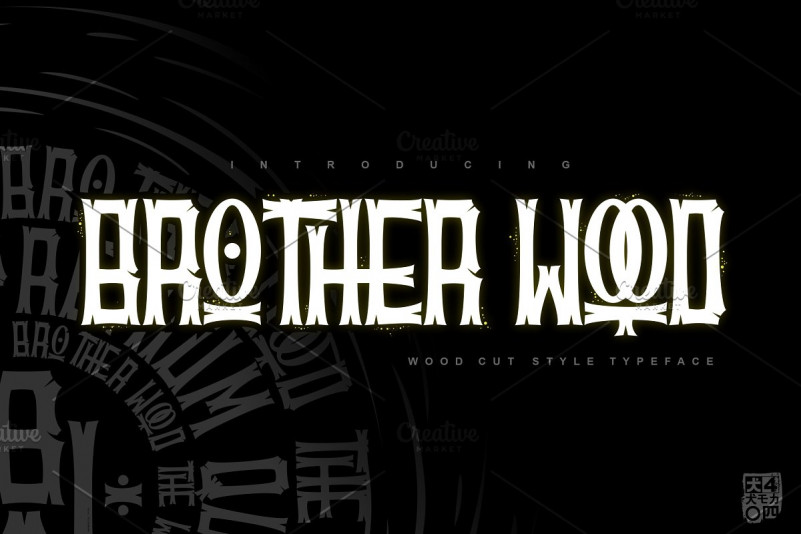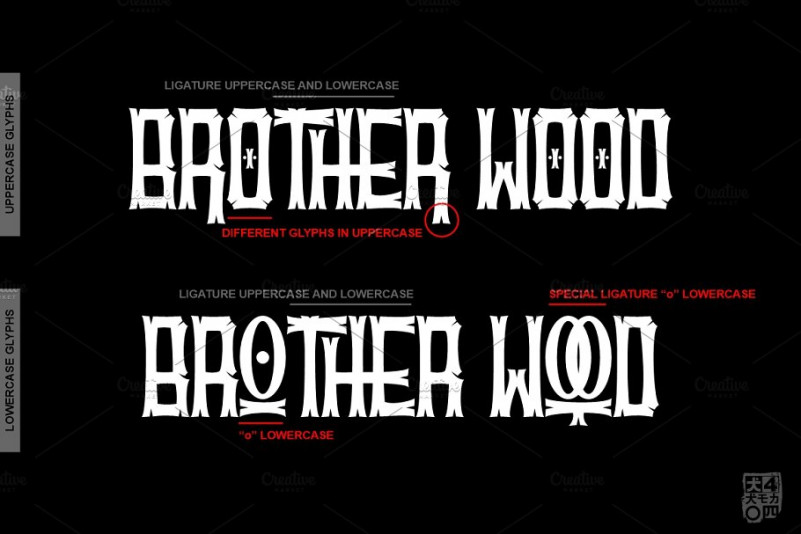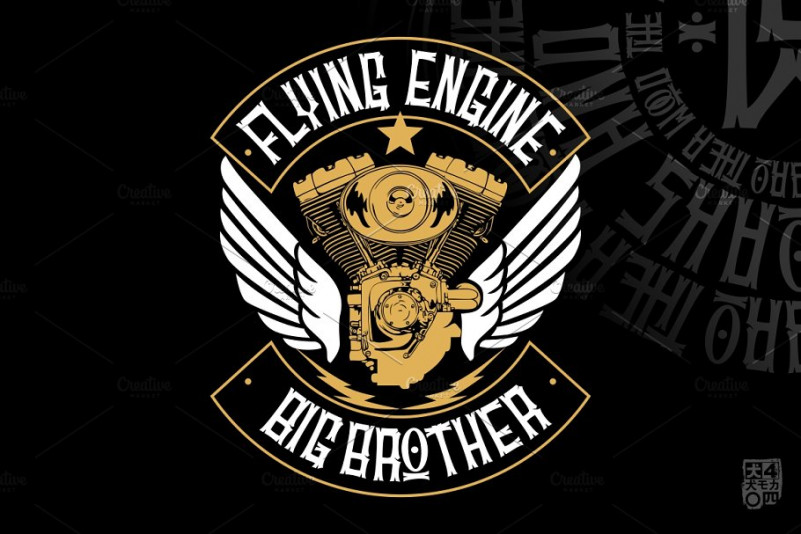
BROTHERwood Font
BROTHERwood its wood cut taste and hard like powerfull wood , really eyescathing, Modern and fresh, very supportive for you needs, make somethink differnt can into all genre in society now. not only writing, but giving character to writing, which will be able to give a different impression.